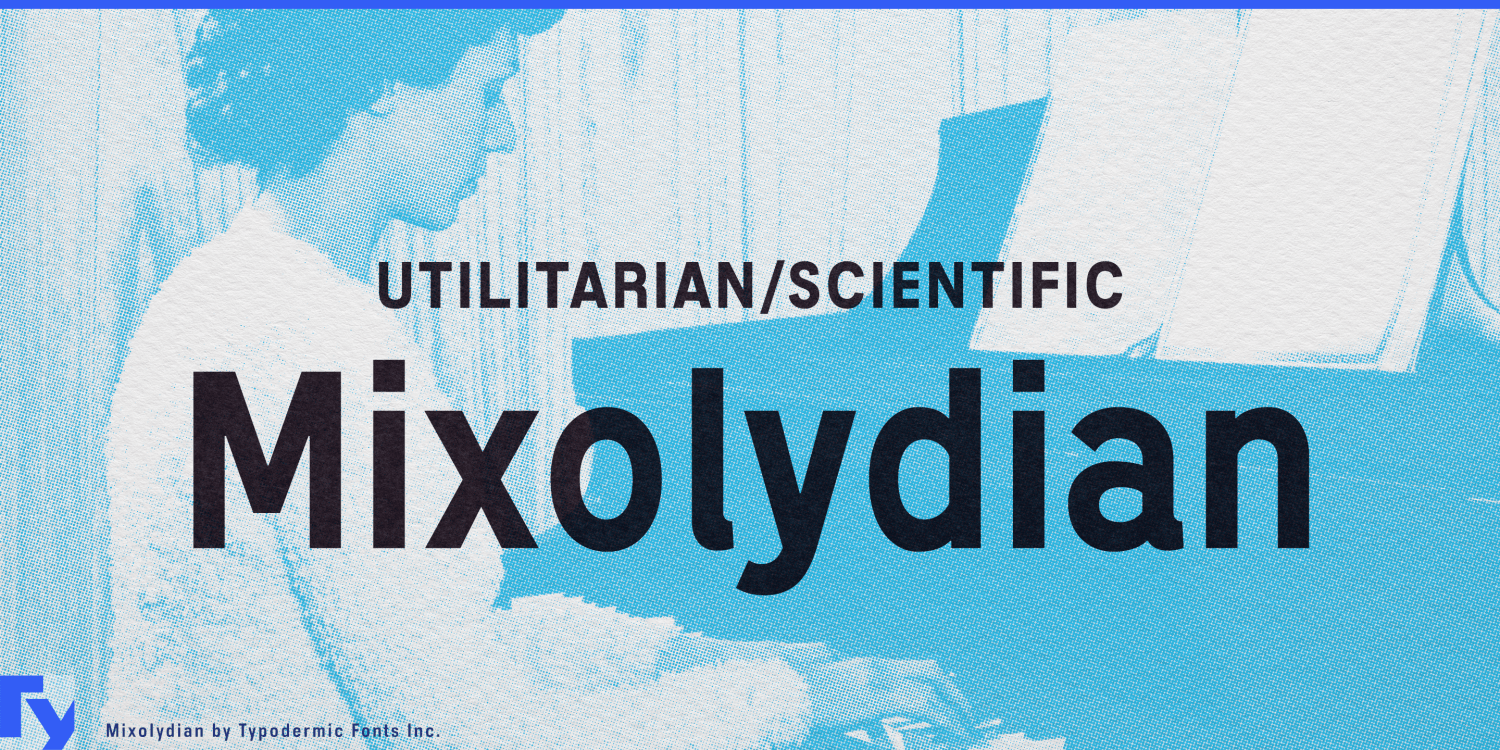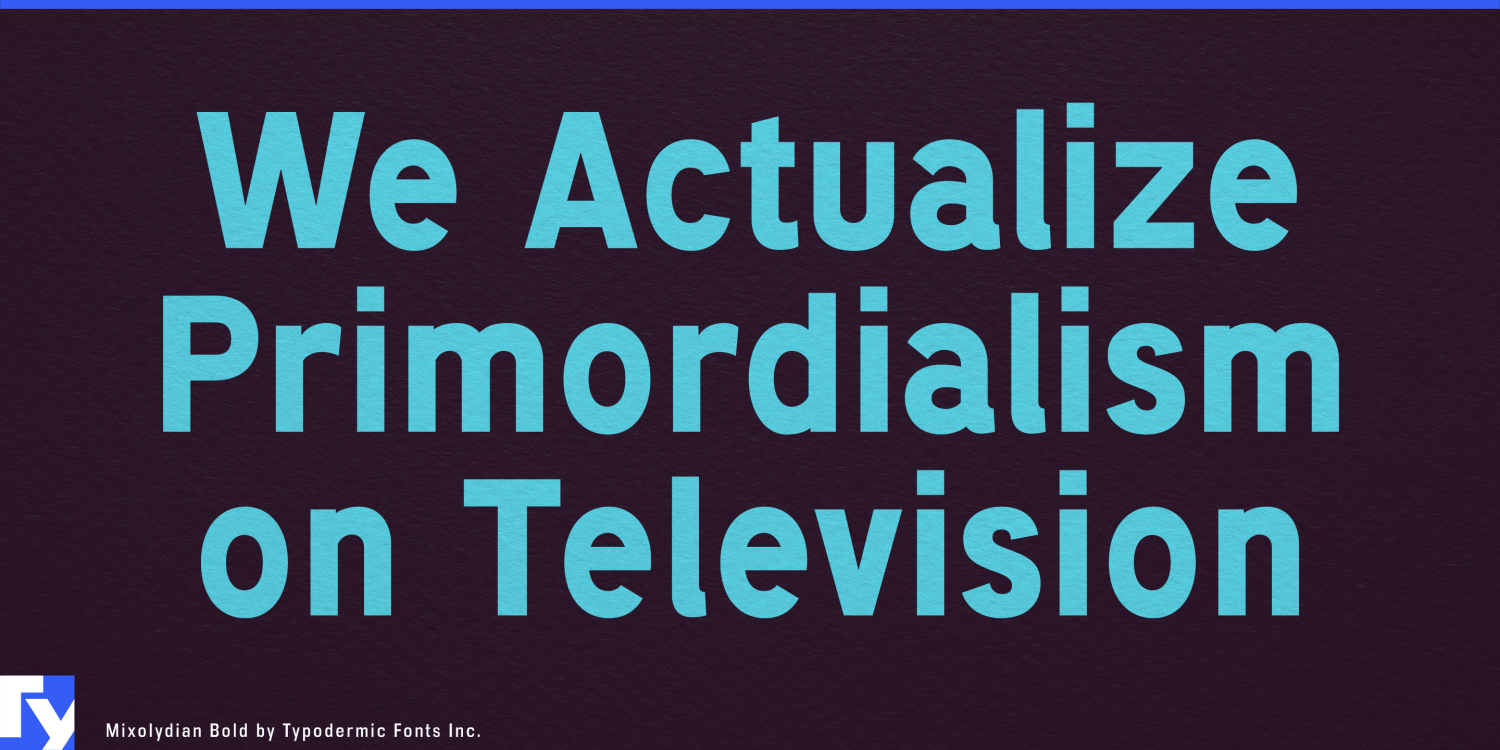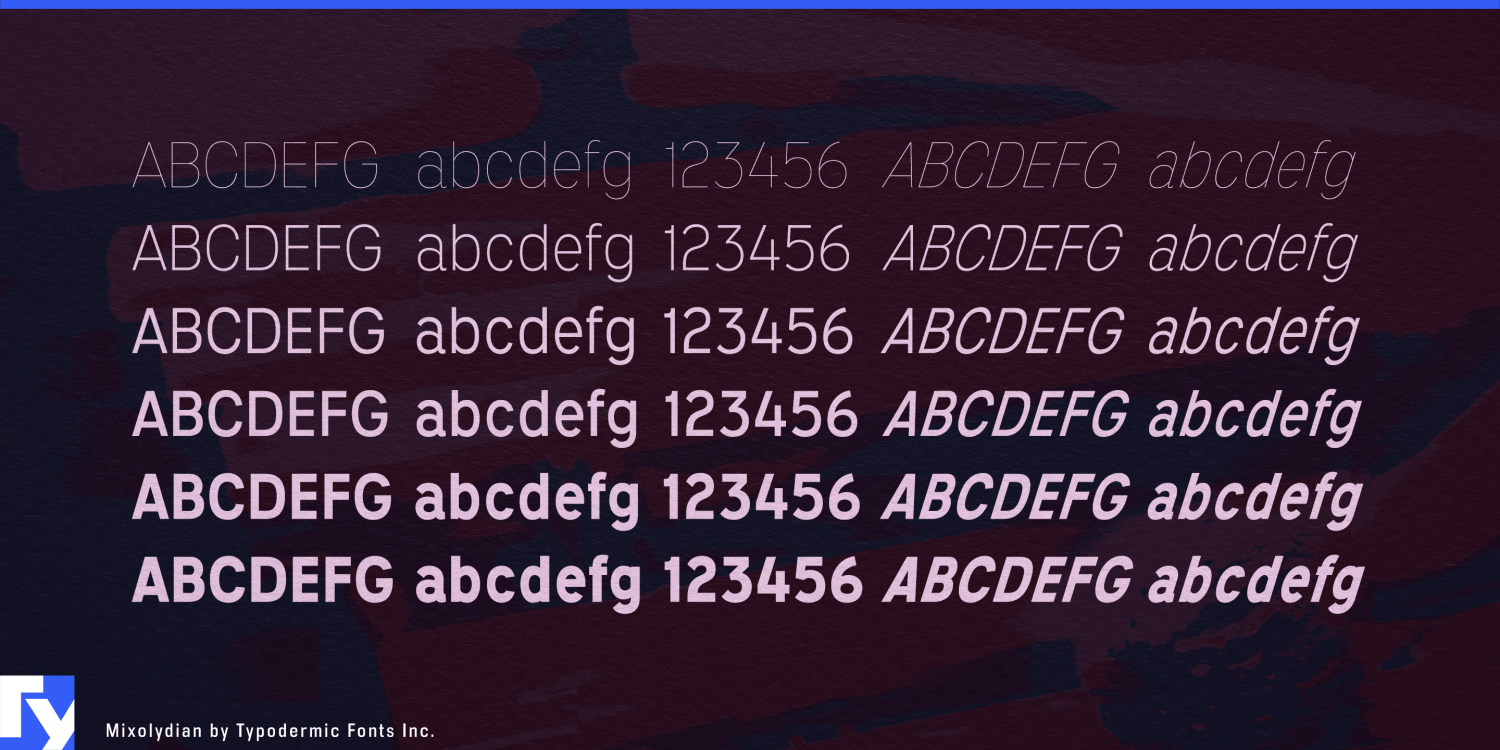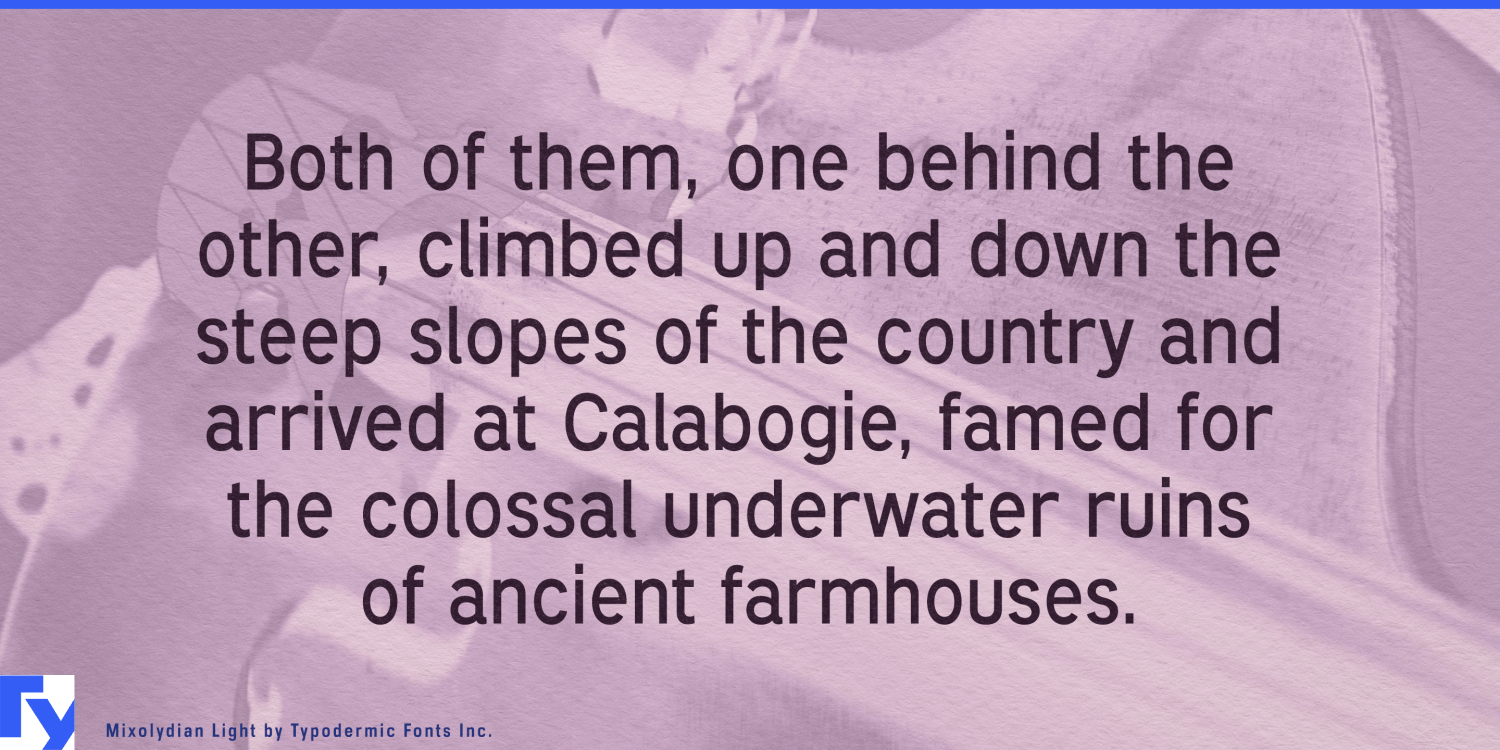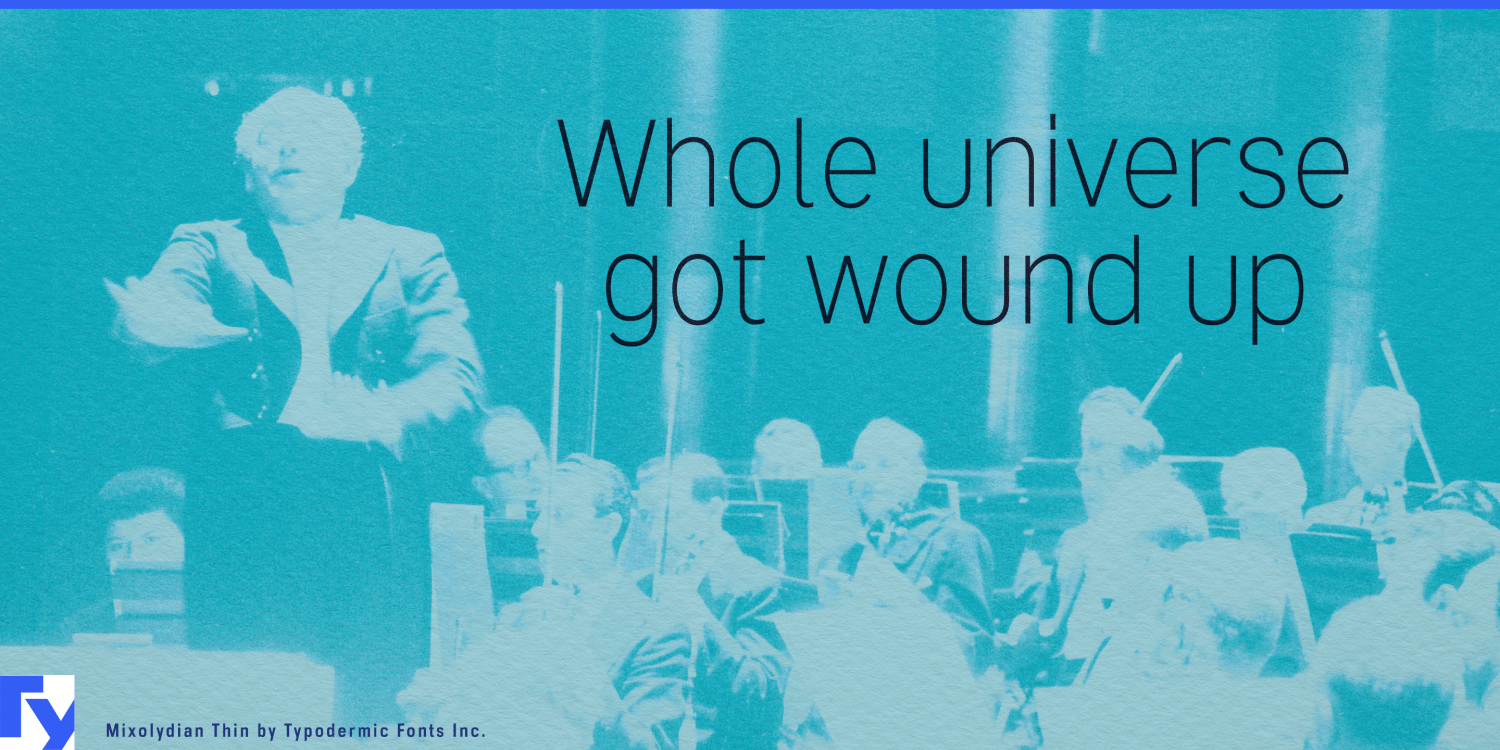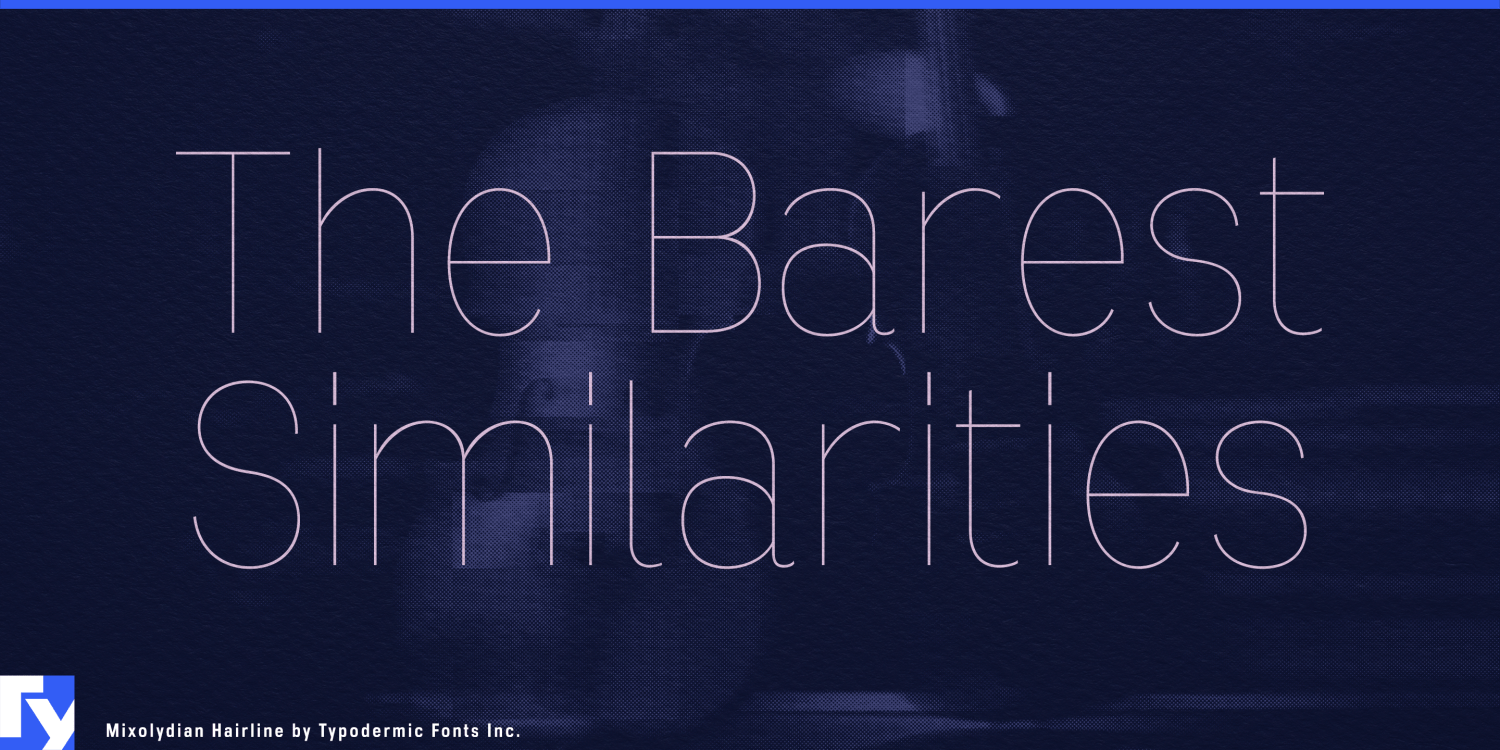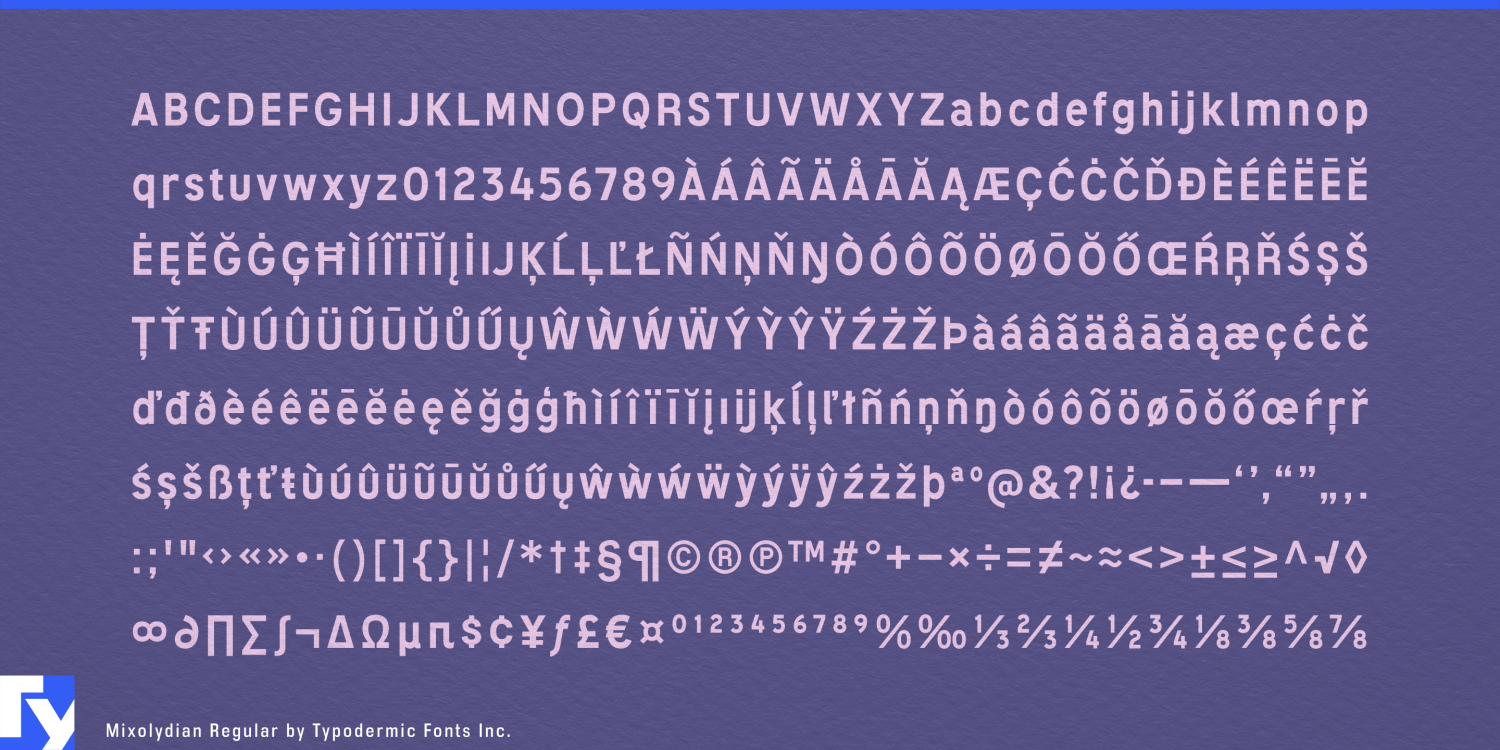
Mixolydian
Font Family by Typodermic
Ladies and gentlemen, prepare yourselves for Mixolydian—the sans-serif typeface that’s about as pretty as a punch in the gut, but twice as effective. This isn’t your grandma’s fancy script or your hipster cousin’s trendy handwritten font. No, Mixolydian is the typographic equivalent of a no-nonsense scientist who’s too engrossed in groundbreaking research to care about their bedhead.
Let’s be clear: Mixolydian isn’t here to win beauty pageants. It’s here to solve equations, draft blueprints, and present data with all the charm of a brick through a plate-glass window. This font doesn’t do “pretty”—it does “trustworthy” with a capital T and “gravitas” with a capital G (which, by the way, looks particularly unadorned and effective in Mixolydian). Born from the utilitarian foundations of the Federal Highway Administration Standard alphabet and architectural drafting templates, Mixolydian is as American as questionable road design and overengineered buildings. It’s the typographic rebel that looked at European technical fonts and said, “Hold my beer.”
Mixolydian’s letters march across the page with all the grace of a military parade led by a three-legged dog. That intentionally off-kilter rhythm isn’t a bug—it’s a feature. It’s there to remind you that in the world of hard data and cold facts, symmetry is for suckers and beauty is skin deep. But trustworthiness? That goes all the way to the core. With six weights and six highly inclined obliques, Mixolydian gives you more options than a scientific calculator. Whether you’re designing the next mind-numbing technical manual or creating signage for a nuclear power plant, Mixolydian has got your back. It’s versatile enough to handle any project you throw at it, as long as that project doesn’t involve looking good. Mixolydian speaks more languages than a United Nations interpreter with a photographic memory. From Afrikaans to Zuni, this font ensures your message maintains its utilitarian charm whether you’re labeling test tubes in Latvia or drafting environmental impact reports in Ecuador.
Choose Mixolydian when you need your audience to trust your message more than they trust their own mother. Use it when you want your designs to scream “competence” louder than a jet engine. Deploy it when beauty is a distraction and cold, hard facts are the main attraction. Remember, in a world obsessed with surface-level aesthetics, Mixolydian dares to be deliberately unattractive. It’s not just a font; it’s a statement. A statement that says, “I’m too busy revolutionizing the world to care about looking pretty.” So go ahead, embrace the ugliness. Let Mixolydian turn your designs into beacons of trustworthiness in a sea of frivolous beauty.